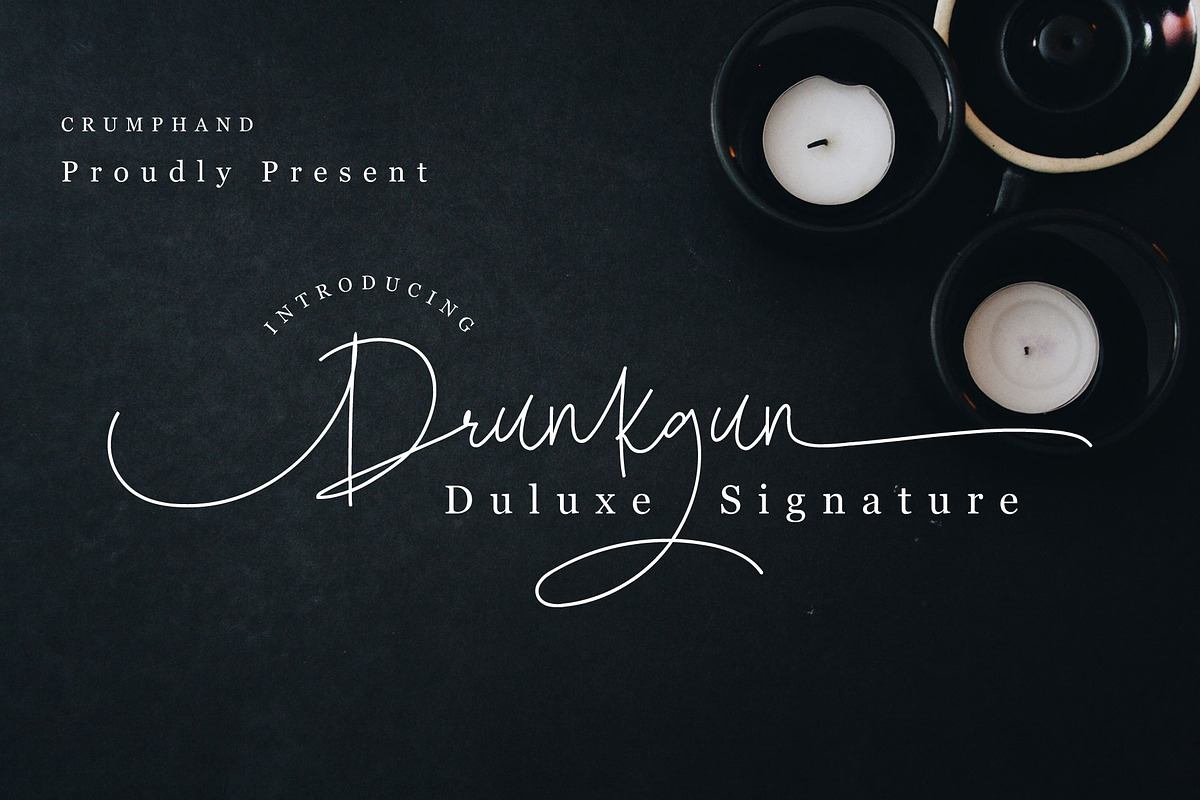
Drunkgun Script Free Download
Drunkgun Script Font Free Download
Please note, to use this font for commercial purposes, you must purchase the full version. Drunkgun is a bold and expressive script font that combines energy with elegance. With its unique, dynamic strokes and playful character, this font is perfect for creating logos, branding, posters, and creative designs. Whether you're working on a fun event flyer, a quirky brand identity, or an eye-catching advertisement, Drunkgun adds a distinctive, artistic touch to your work. Test it out and enjoy free download access for personal use. Experience the bold style of Drunkgun Script Font Free Download before purchasing the commercial license. Add a lively and artistic vibe to your designs with Drunkgun.